The psychology of fonts in summer fashion marketing plays a major role in how audiences emotionally connect with fashion brands. Typography is not only about readability or aesthetics, but directly influences perception, mood, and buying behavior. In the fast-moving fashion industry, fonts help communicate personality, seasonal energy, and brand identity within seconds.
Summer fashion campaigns are often associated with freedom, confidence, freshness, luxury, and creativity. Typography helps translate those emotions visually. Whether it’s a luxury beachwear collection, a tropical social media campaign, or a minimalist fashion editorial, the font choice can dramatically affect how customers perceive the brand.
In this article, we’ll explore how typography psychology works in summer fashion marketing and why choosing the right font can strengthen branding, improve storytelling, and create stronger emotional engagement.
Why Typography Psychology Matters in Fashion
Typography psychology refers to the emotional and psychological responses people experience when they see different font styles.
Every font communicates a feeling:
- Serif fonts often feel elegant and luxurious.
- Sans-serif fonts feel modern and minimal.
- Script fonts feel feminine and personal.
- Bold display fonts feel energetic and expressive.
Fashion brands carefully choose typography because it shapes how audiences emotionally interpret their products and campaigns.
In summer fashion marketing, typography helps create seasonal experiences that feel:
- Light
- Vibrant
- Fresh
- Stylish
- Relaxed
- Premium
Fonts become visual emotions.
How Fonts Influence Customer Perception
Fonts Create First Impressions
Customers often judge fashion brands within seconds. Before reading product descriptions or learning about materials, they already form opinions based on visual presentation.
Typography strongly influences those first impressions.
For example:
- Thin serif fonts may feel expensive and sophisticated.
- Rounded fonts may feel playful and youthful.
- Minimal sans-serif fonts may feel modern and premium.
The emotional tone of typography influences whether customers perceive a brand as luxurious, casual, trendy, or artistic.
Fonts Affect Emotional Connection
Fashion marketing is highly emotional. Customers are not only buying clothing, but they are also buying identity, confidence, and lifestyle.
Typography helps strengthen that emotional storytelling.
- Elegant Fonts
Create feelings of sophistication and exclusivity.
- Playful Fonts
Feel youthful, energetic, and approachable.
- Minimal Fonts
Communicate modern luxury and simplicity.
- Handwritten Fonts
Feel authentic, artistic, and personal.
The right font creates stronger emotional resonance with target audiences.
Popular Summer Fashion Typography Styles
1. Elegant Serif Fonts
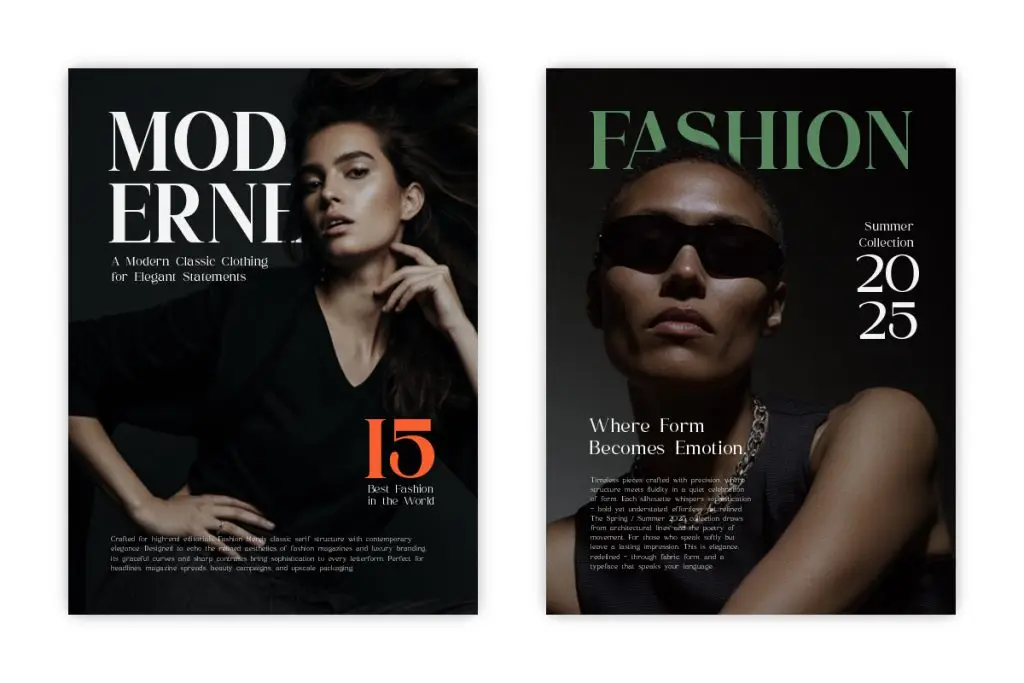
Elegant serif typography remains highly popular in summer fashion marketing because it feels timeless and luxurious.
Luxury brands often use serif fonts in:
- Editorial campaigns
- Resort collections
- Fashion magazines
- Jewelry branding
These fonts create premium emotional experiences while maintaining readability and sophistication.
Psychological Effect
Serif fonts communicate:
- Trust
- Luxury
- Elegance
- Tradition
- Exclusivity
They work especially well for high-end summer campaigns.
2. Minimal Sans-Serif Fonts
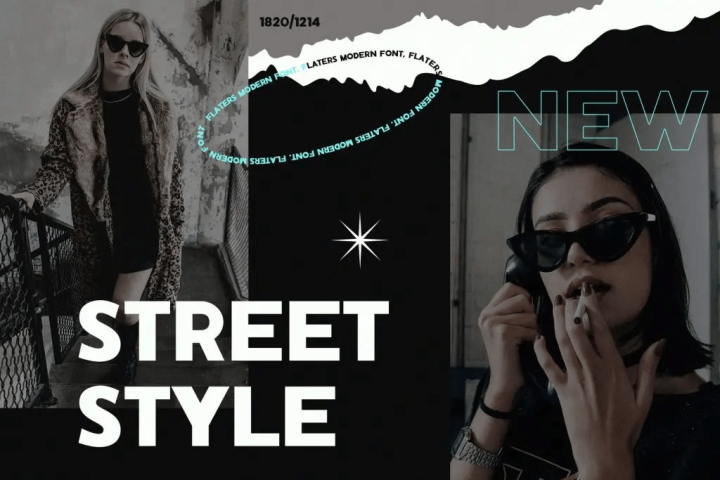
Modern fashion brands increasingly use clean sans-serif typography to create minimalist aesthetics.
Minimal typography helps:
- Photography stands out
- Layouts feel cleaner
- Brands appear more contemporary
Psychological Effect
Sans-serif fonts communicate:
- Simplicity
- Confidence
- Modernity
- Professionalism
These fonts are especially effective for streetwear, swimwear, and modern lifestyle brands.
3. Handwritten and Script Fonts
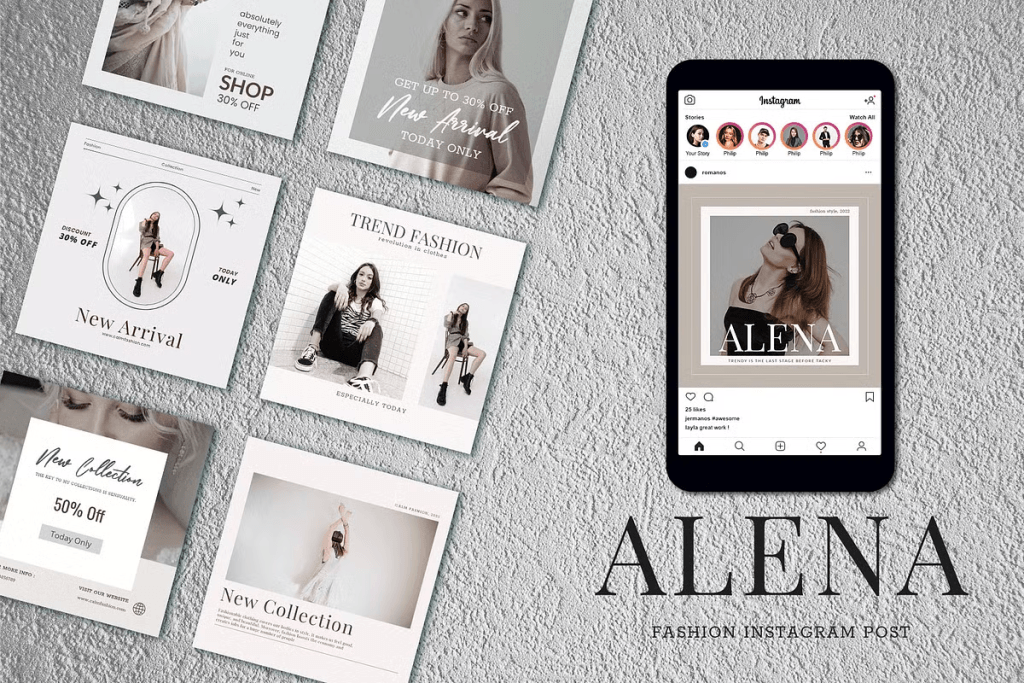
Script typography creates a more emotional and personal feeling.
Summer campaigns often use handwritten fonts for:
- Boutique branding
- Beauty campaigns
- Lifestyle products
- Social media promotions
Psychological Effect
Script fonts feel:
- Feminine
- Romantic
- Artistic
- Authentic
They create softer emotional connections with audiences.
Typography and Color Psychology in Summer Fashion
Typography psychology becomes even stronger when combined with color psychology. Different typography colors influence emotional reactions differently.
White Typography
White fonts often feel:
- Clean
- Minimal
- Luxurious
- Airy
Perfect for modern summer branding.
Yellow and Orange Typography
Warm typography colors feel:
- Energetic
- Cheerful
- Tropical
- Friendly
Often used for summer sale campaigns and beachwear promotions.
From elegant serif typefaces and minimalist sans-serif fonts to playful retro display styles and handwritten letters, each font conveys a different emotional message.
Understanding the psychology of typography helps designers create more effective fashion campaigns, stronger branding, and more memorable visual storytelling during the summer season.